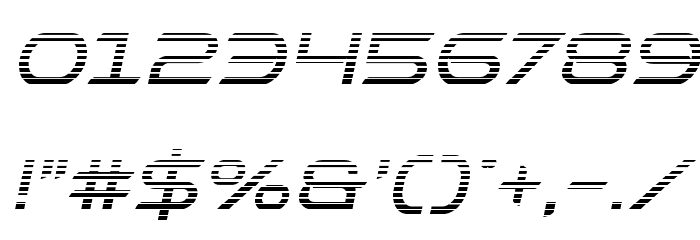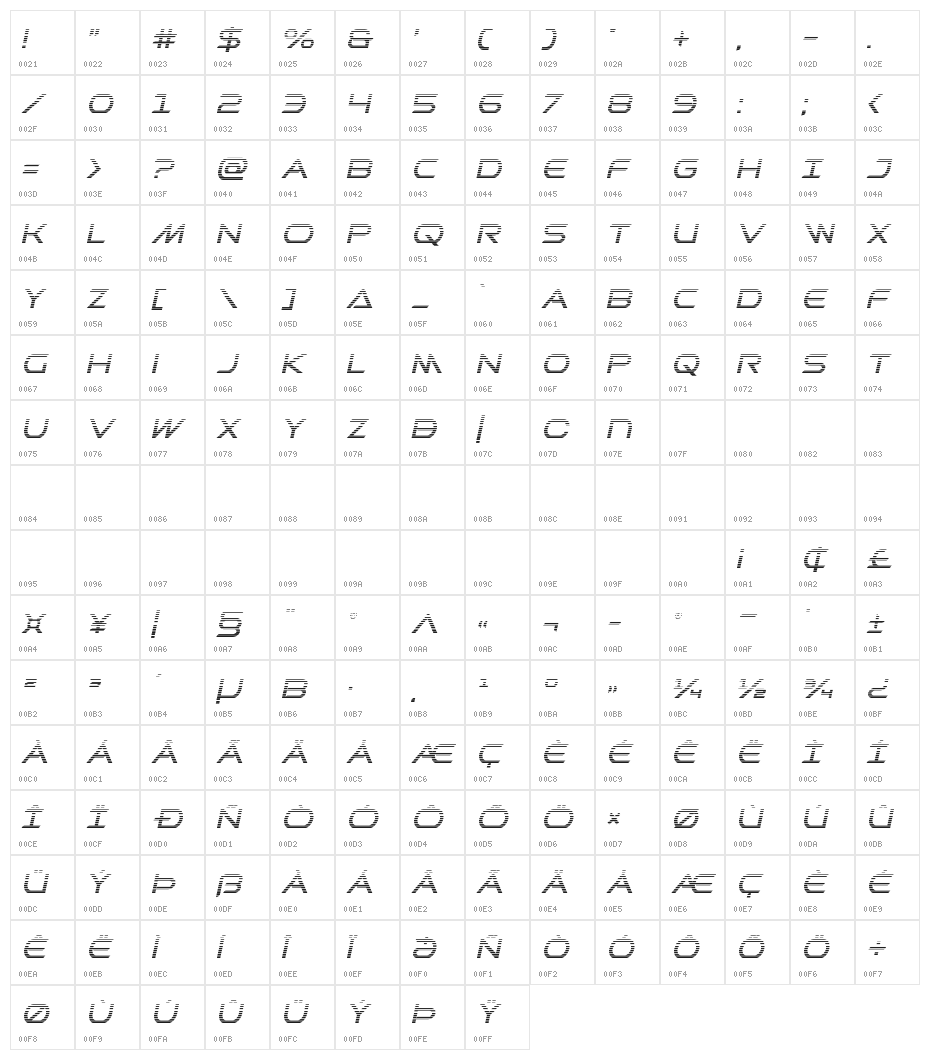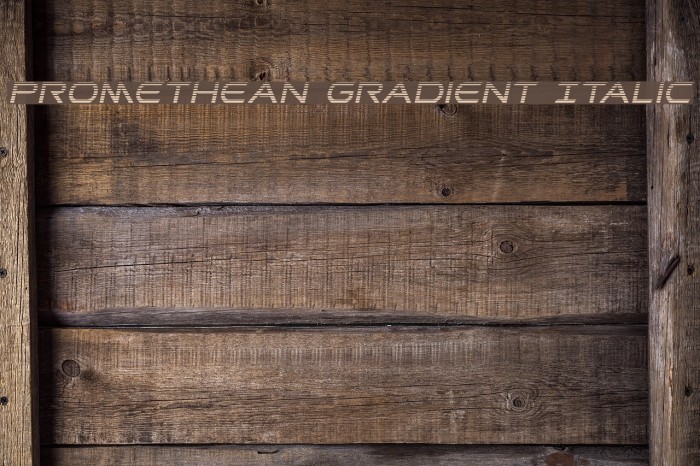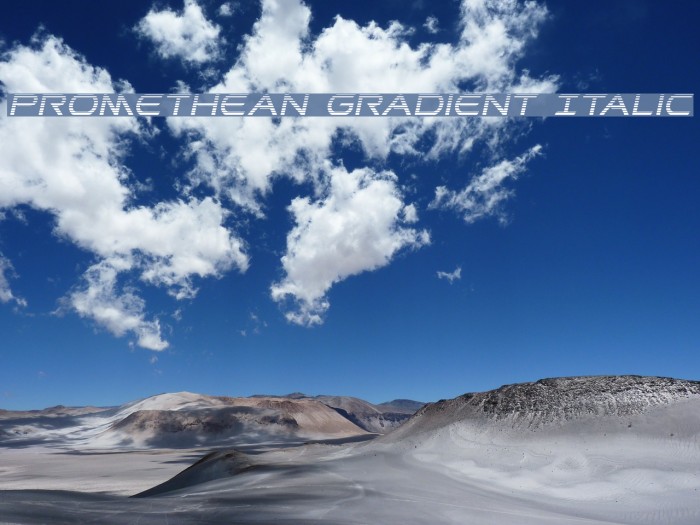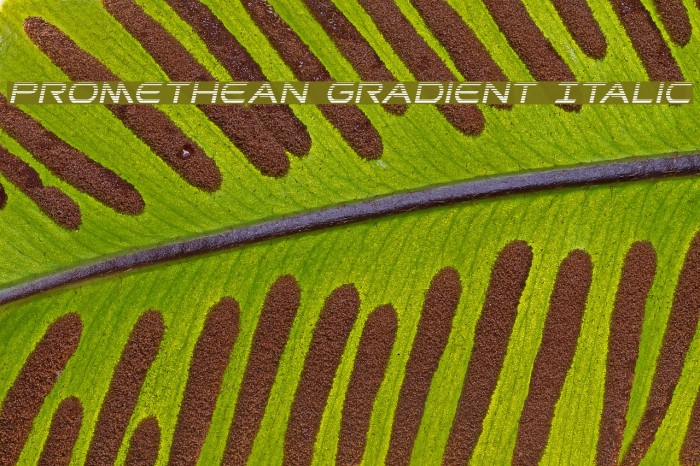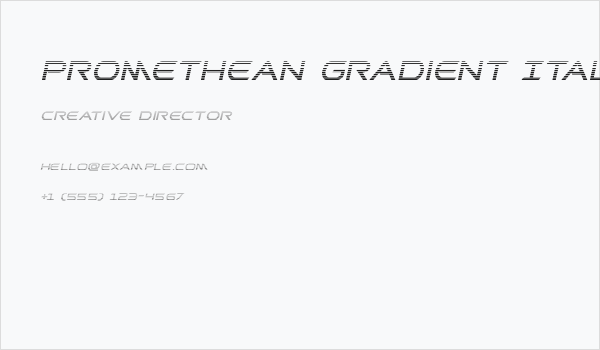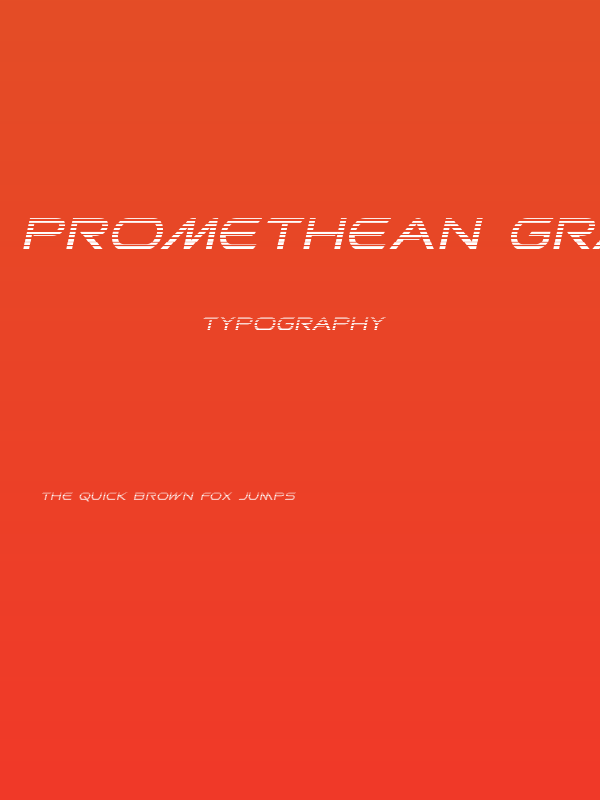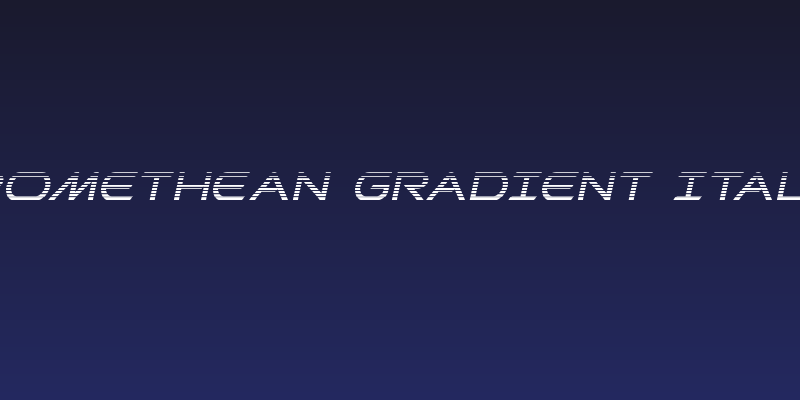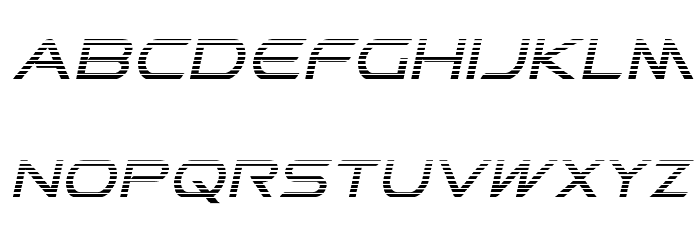
Promethean Gradient Italic Font
Promethean Gradient Italic Description
This font features a modern, futuristic design with a distinct gradient effect across each character. The italicized style adds a dynamic and forward-leaning appearance, enhancing its contemporary feel. The characters are composed of segmented lines, creating a sense of movement and energy. This unique design is consistent across uppercase, lowercase, numbers, and special characters, making it versatile for various applications. The font's structure is clean and geometric, with a slight slant that emphasizes its modern aesthetic.